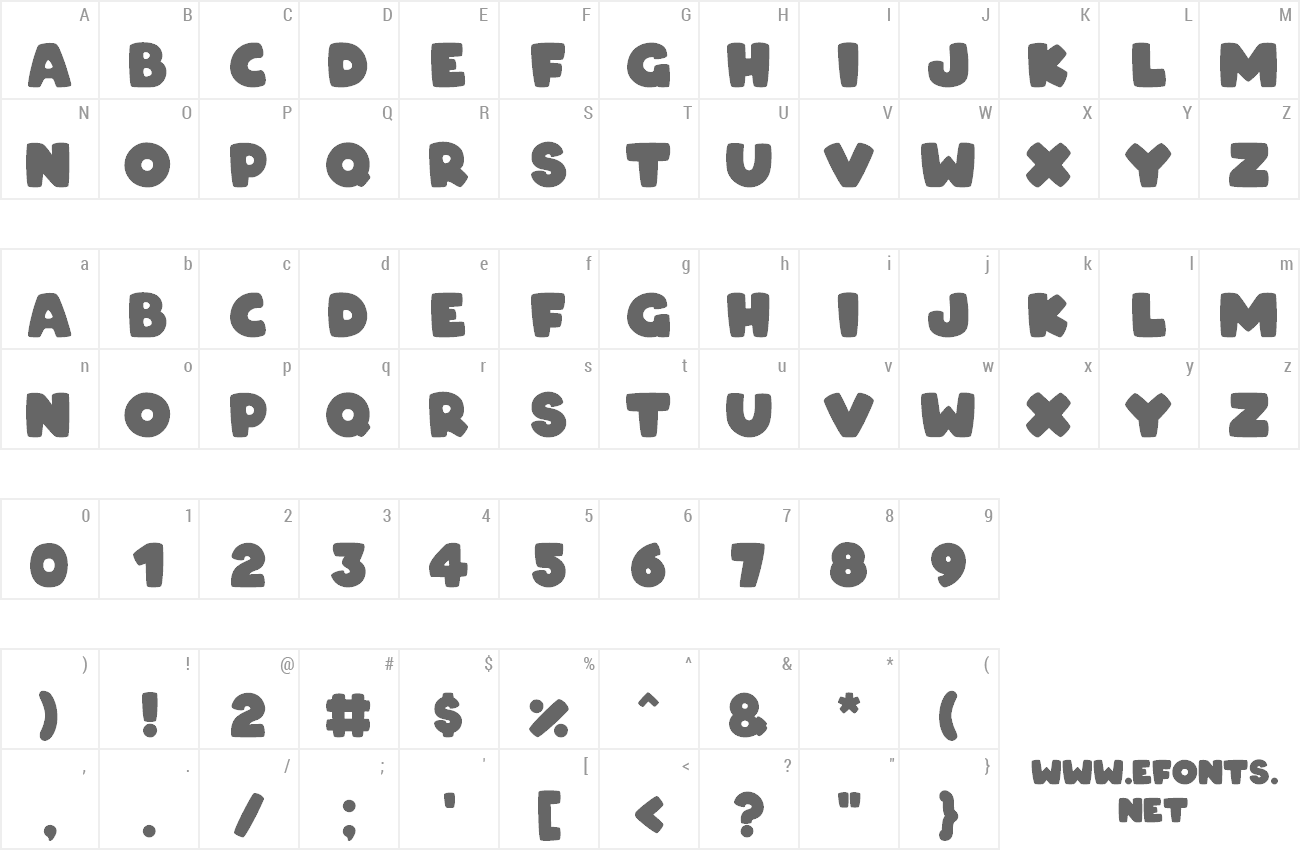
| Font name: | Arco |
| Author: | Rafael Olivo |
| Note by Rafael Olivo | |
ARCO is a funny typography, with rounded edges, with more than 80 characters, its alphabets in uppercase. This typeface is free for personal and commercial use. It would be very comfortable to share your work with me using this typeface. |